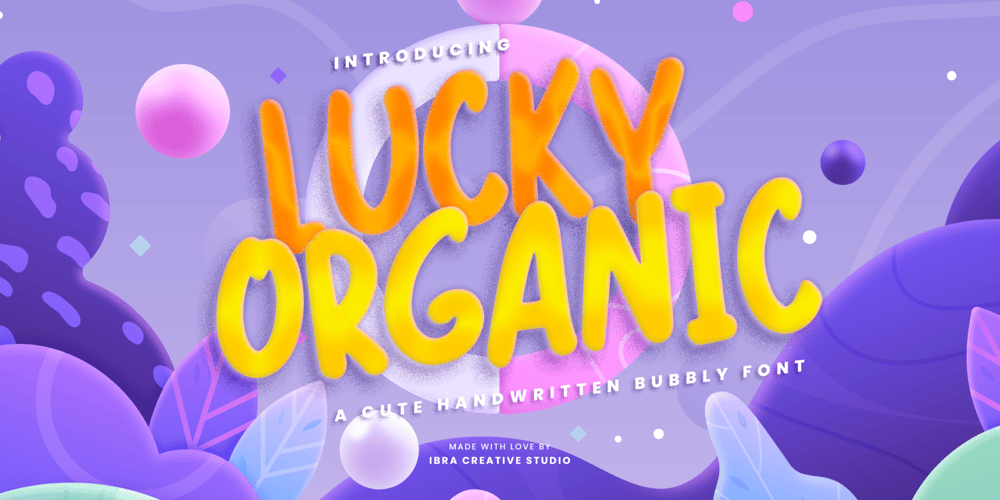
Lucky Organics Font Family was designed by Roisatul Azizah and published by IbraCreative. Lucky Organics contains 1 styles and family package options. Lucky Organic is an endearing and charming handwritten bubble font that radiates pure cuteness and playfulness. With its whimsical and rounded letterforms, Lucky Organic captures the essence of joyful innocence. Each letter is nestled within a delightful bubble, creating a captivating and cheerful visual effect. The font’s organic curves and friendly design make it an ideal choice for projects that crave a touch of adorable charm, such as children’s books, playful logos, and vibrant signage. Lucky Organic effortlessly transforms any text into a lively display of creativity, bringing a smile to faces and a sense of light-hearted wonder to designs.